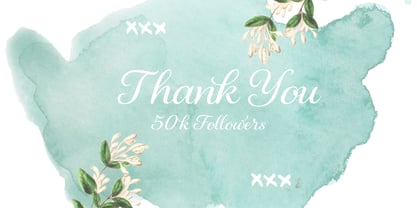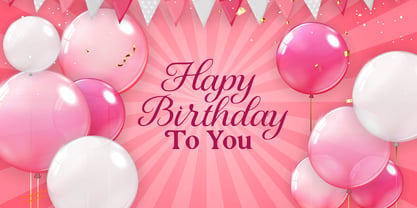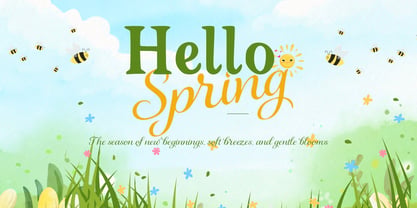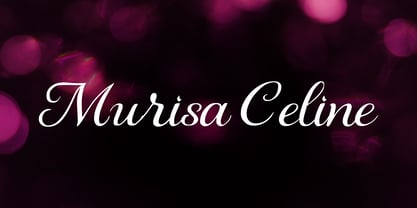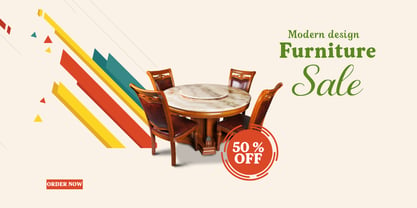
Murisa Celine
by Murisa Studio
The Murisa Celine Font Family was designed by Lili Sadili and published by Murisa Studio. Murisa Celine contains 2 styles and family package options. More about this family
✨ Murisa Celine – Where Elegance Meets Expression ✨ Step into a world of timeless sophistication with Murisa Celine, a cursive script font designed to captivate at first glance. Its flowing strokes and graceful curves embody refinement, making every word feel like a work of art. 🌍 Multilingual Power – Crafted with care, Murisa Celine supports Eastern European languages, ensuring your message resonates across cultures without losing its charm. 🎨 Artistry in Motion – Each letter dances elegantly across the page, perfect for luxury branding, high-end invitations, editorial headlines, and statement designs. 💎 Exquisite Versatility – Whether adorning a wedding suite, elevating a fashion campaign, or defining a premium product identity, Murisa Celine transforms text into pure visual poetry. This is not just a font—it’s an experience of prestige and originality, designed for creators who demand the extraordinary. With Murisa Celine, your words don’t just speak; they shine.
Designers: Lili Sadili
Foundry: Murisa Studio